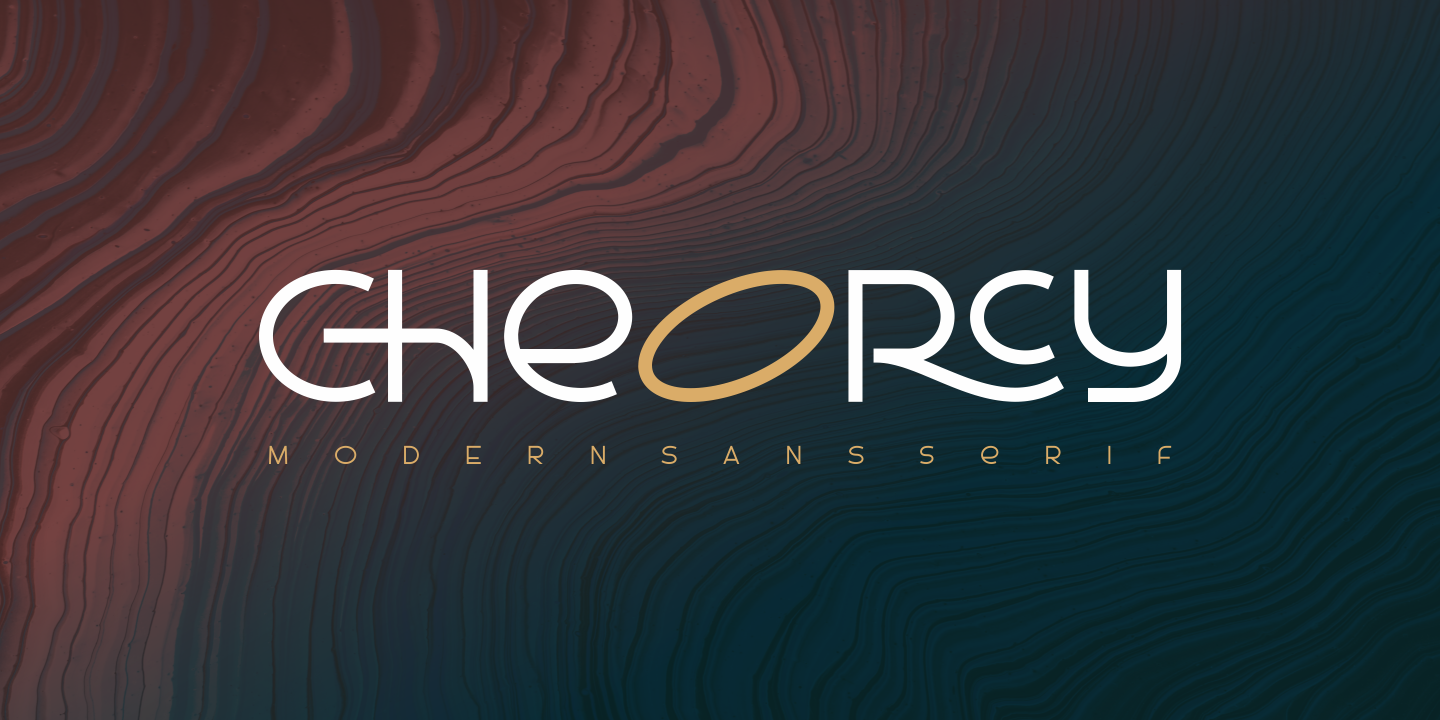
Introducing Cheorcy Font Free Download – a bold, contemporary display typeface that combines geometric precision with playful character. This eye-catching font features unique letterforms with subtle angular details, perfect for projects needing modern impact with a touch of personality.
Why Cheorcy Font Stands Out
Cheorcy Font Free Download delivers:
Distinctive geometric letter construction
Perfect balance of modernity and approachability
Excellent readability at display sizes
Versatile styling for various applications
Cheorcy Font Free Download Technical Features:
Uppercase characters with clean, angular details
Includes stylistic alternates
Optimized for large-scale use
Contemporary Applications:
Editorial headlines
Event posters
Packaging design
Social media graphics
Design Tip: Pair with minimalist layouts and vibrant accent colors for maximum impact!